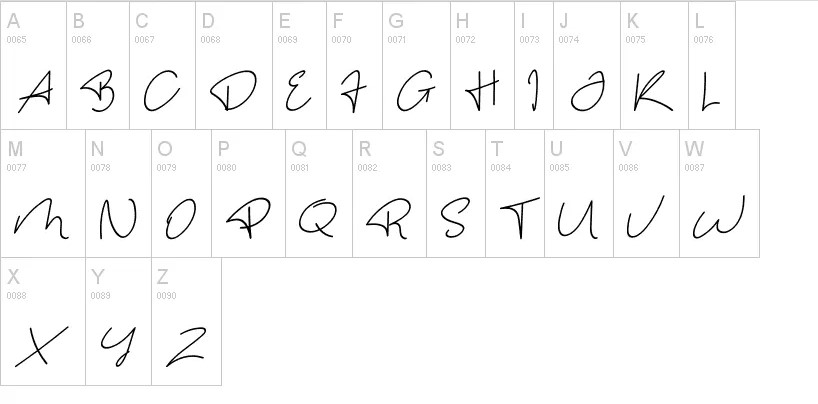
The Bohemian Font is a stylish script font with a trendy look. Created by Agung Rohmat, this font can be downloaded and used for free. It is perfect for both commercial and personal projects.
The smart and elegant textures come with lots of futuristic styles and magnificent looks that will make your projects super attractive and more interesting to read. The font can be used in the pairing to get more features.
The designer of this adds more features and styles to this font and makes it unique as compared to other scripted fonts. You can take a view of this font in the below image.